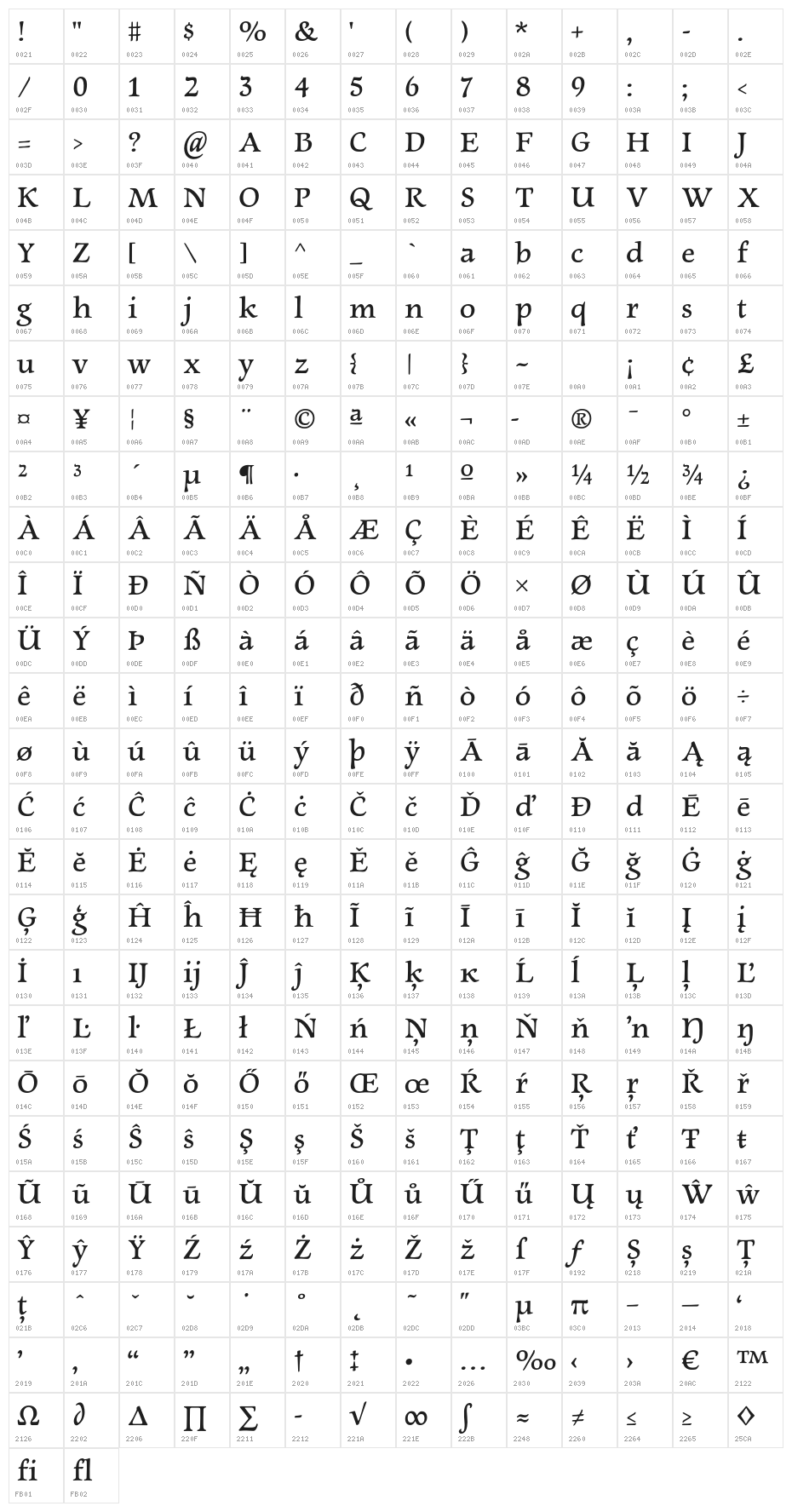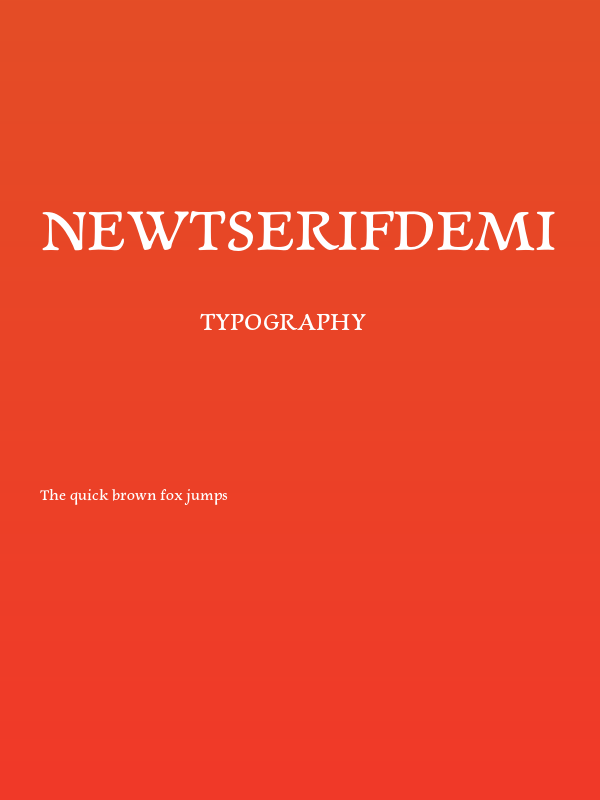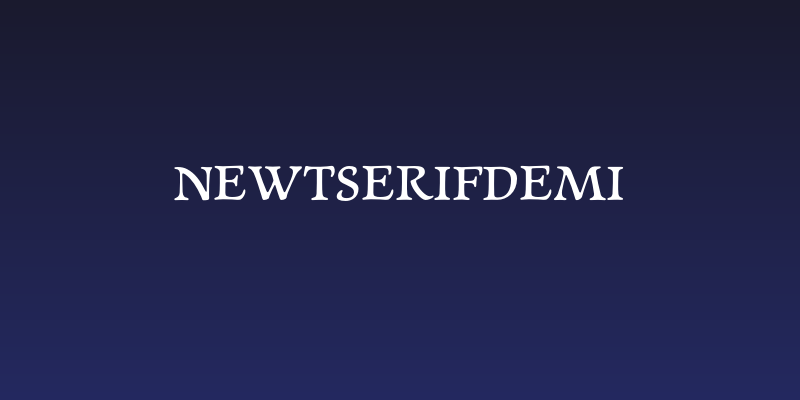
NewtSerifDemi Font
NewtSerifDemi Description
This font features a classic serif style with a strong presence and elegant curves. The serifs are pronounced, giving the typeface a traditional and authoritative feel. The uppercase letters are bold and commanding, while the lowercase letters maintain a consistent flow with slightly rounded edges. Numbers are clear and legible, making them suitable for various applications. The special characters are well-integrated, maintaining the overall aesthetic of the font. This typeface is versatile, suitable for both digital and print media, offering a timeless appeal.
| Proposed Projects | Ideal for book covers, editorial design, formal invitations, and branding projects. |